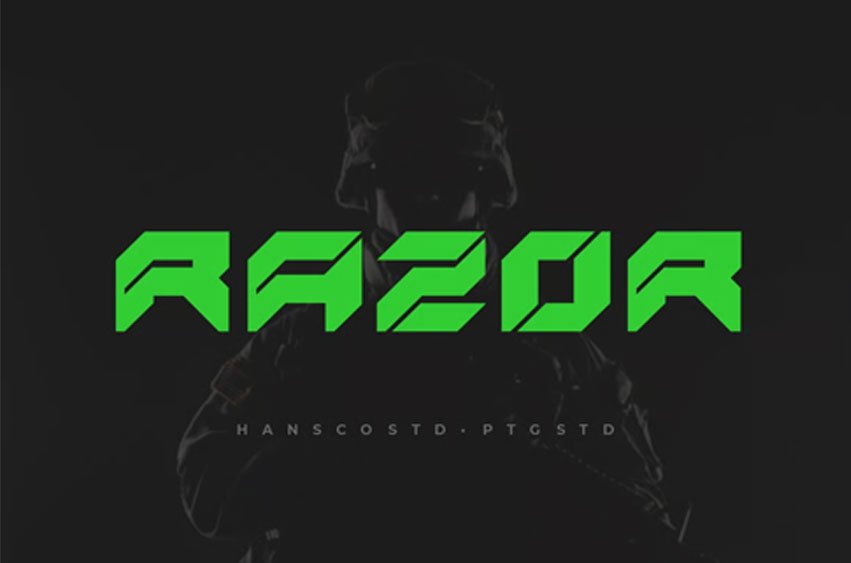
Razor Modern Font is a modern bold font with cubical style that will make your design looks modern and masculine. Coming with a 3D – square concept with dotted line accents in it, this font will give a modern, digital and sophisticated feel to your projects. Don’t forget to add the Razor font to your collection list.
You can use this font for any purpose, especially to make logotype like a army style sports logo brand. Razor font comes with a full uppercase, numbers, punctuation and with extensive language support, it’s going to be a very usable addition to your project. However, please note that this font is only available in uppercase versions, no lowercase letters because the main purpose of this font is for logo needs and the like. Create your digital projects easily and powerfully with the Razor font today!